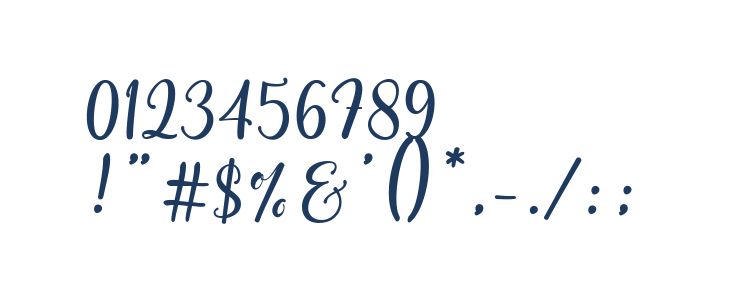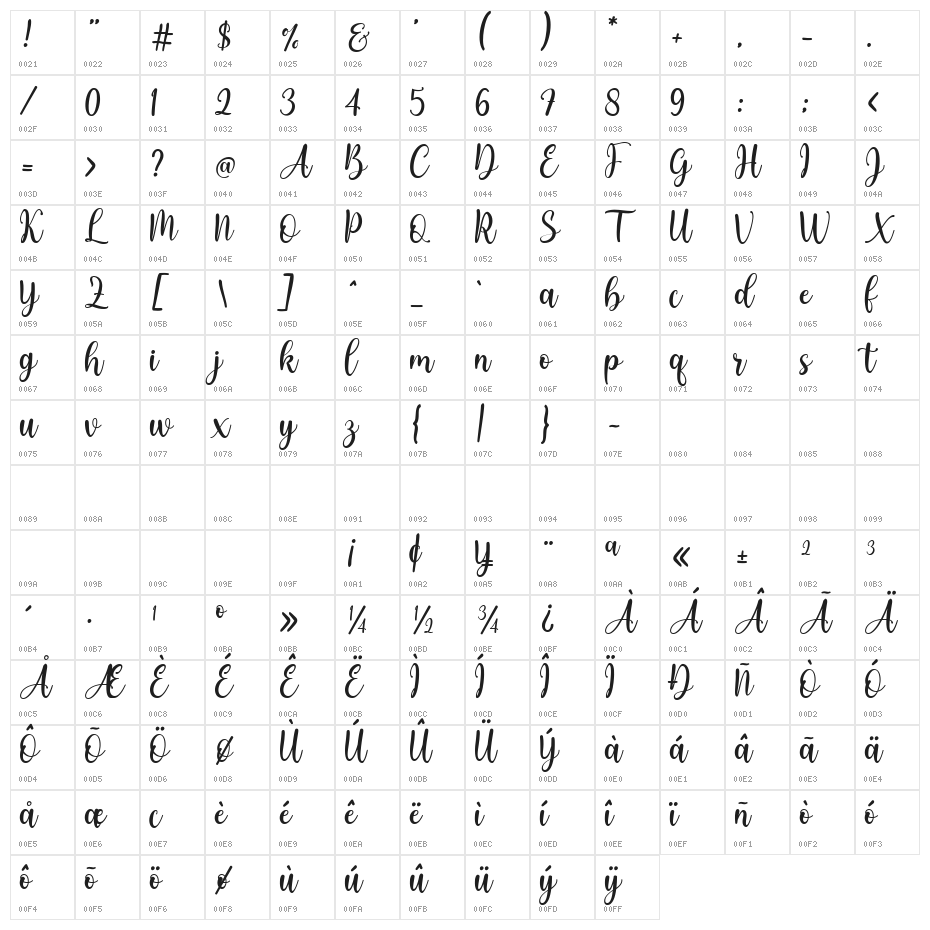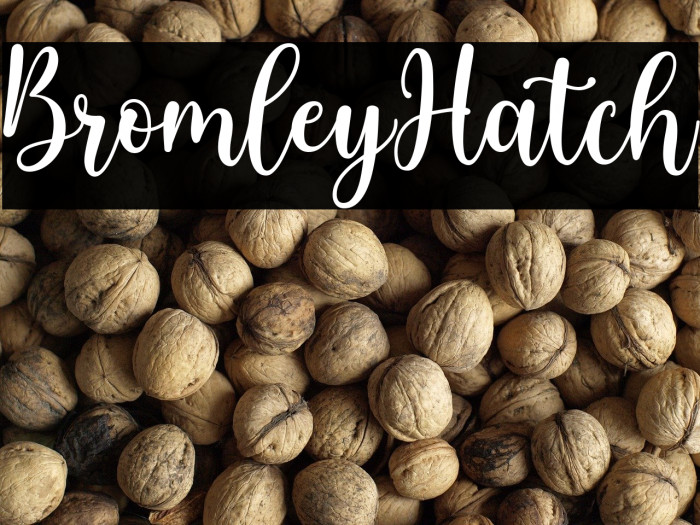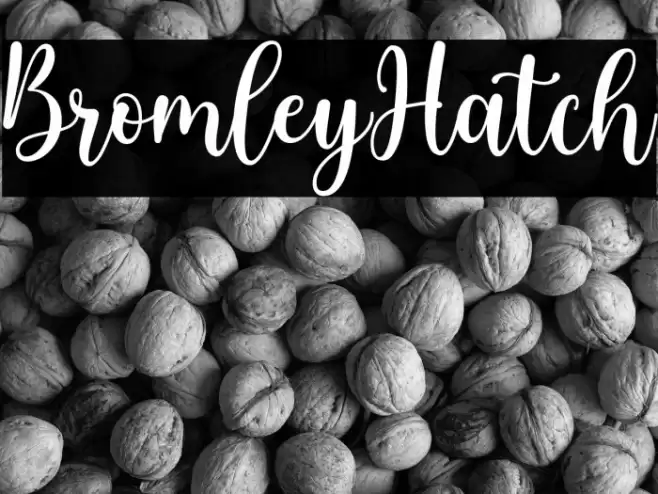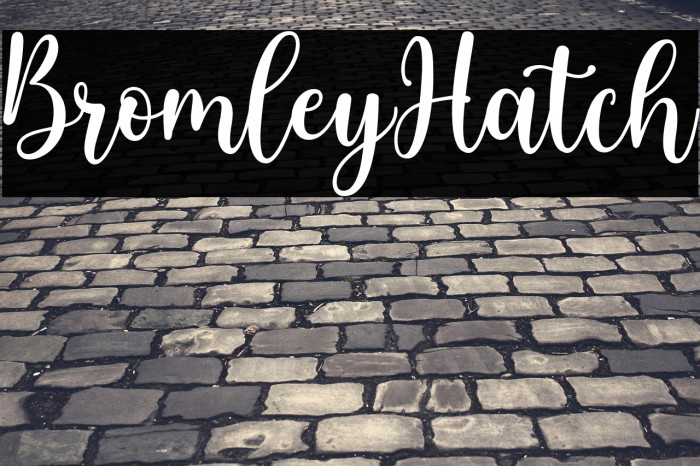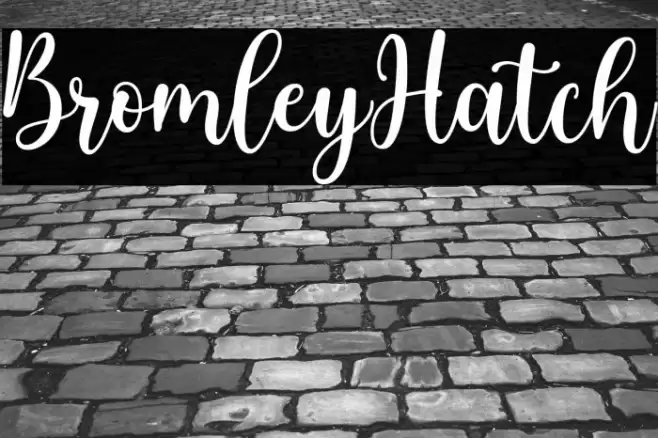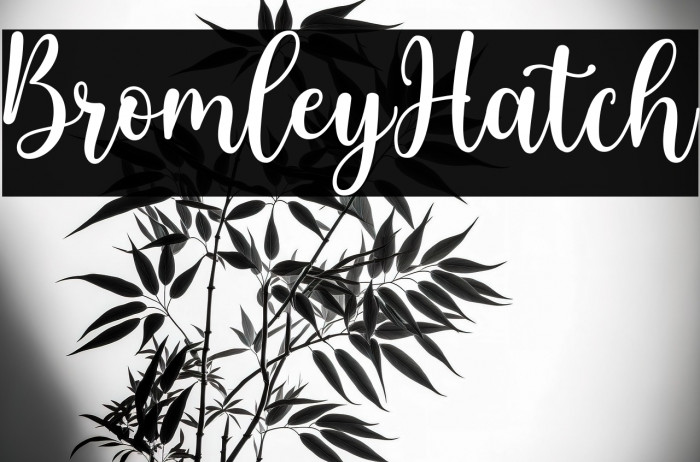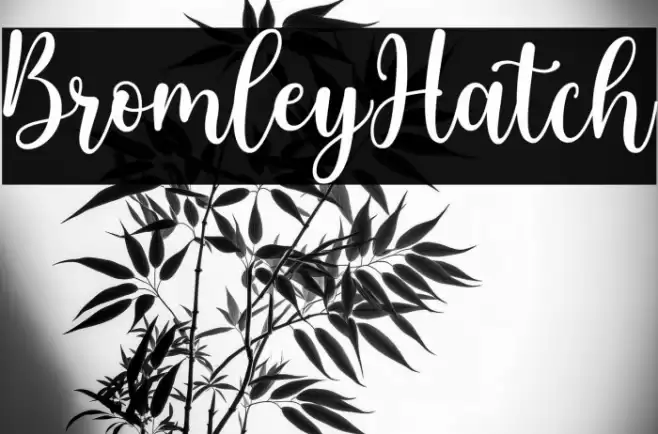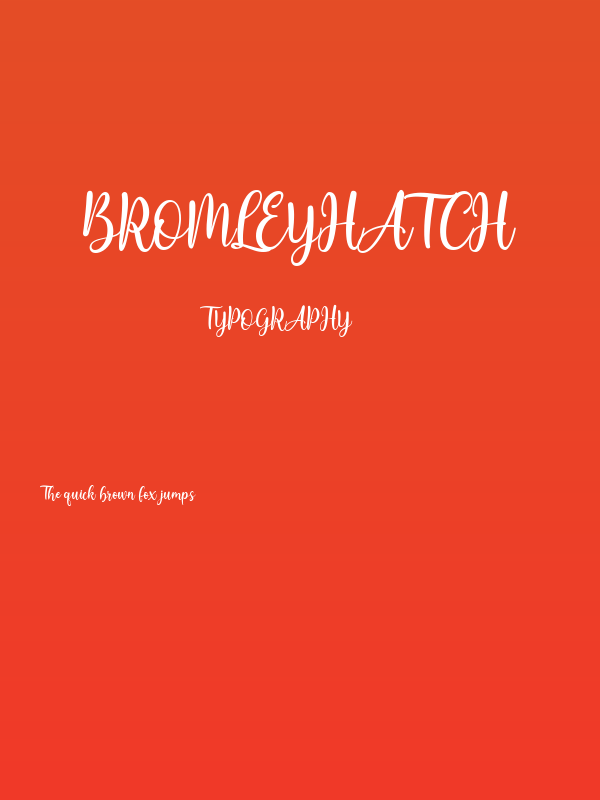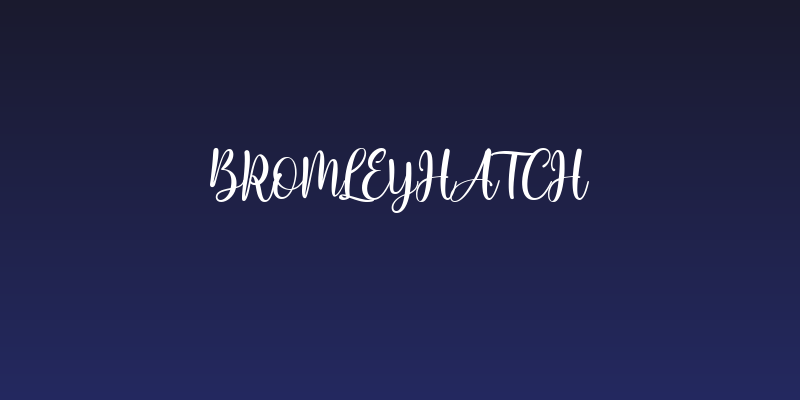
BromleyHatch Font
BromleyHatch Description
This font exudes a lively and elegant script style, characterized by its flowing, cursive letterforms that convey a sense of movement and grace. The uppercase letters are tall and slender, with sweeping ascenders and descenders that add a touch of sophistication. The lowercase letters maintain a consistent rhythm, enhancing readability while retaining their decorative flair. Numbers are well-integrated into the design, matching the overall aesthetic with their curvaceous forms. Special characters are thoughtfully crafted, ensuring they blend seamlessly with the rest of the typeface. This font is perfect for projects that require a personal touch, such as invitations, greeting cards, and branding materials.
| Use Case | Headlines, Invitations, Branding |